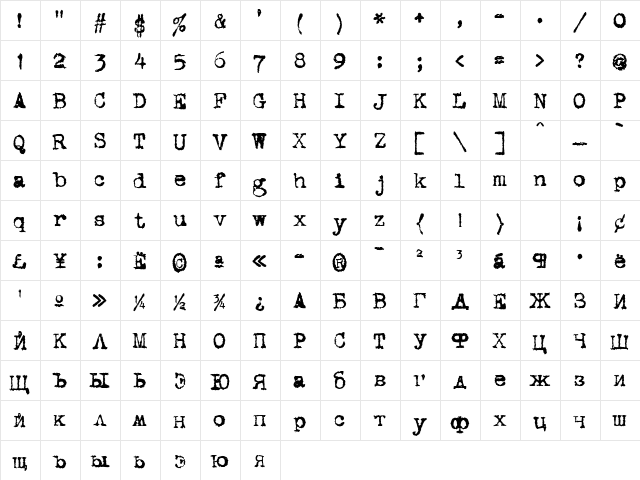
DS VTCorona Cyr Regular
Design Context for DS VTCorona Cyr Typeface
DS VTCorona Cyr takes a measured approach to typography — its balanced proportions and neutral character make it a reliable workhorse for both digital and print work.